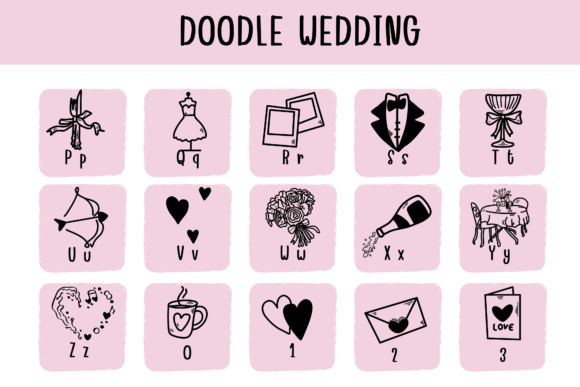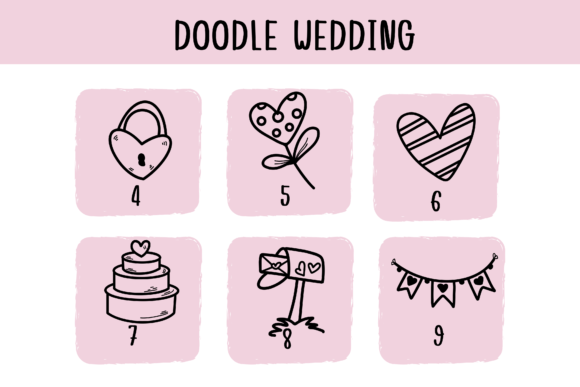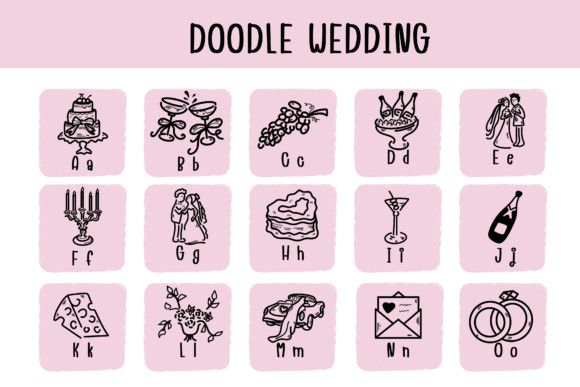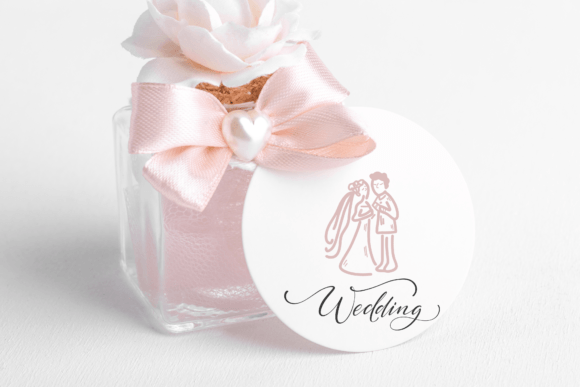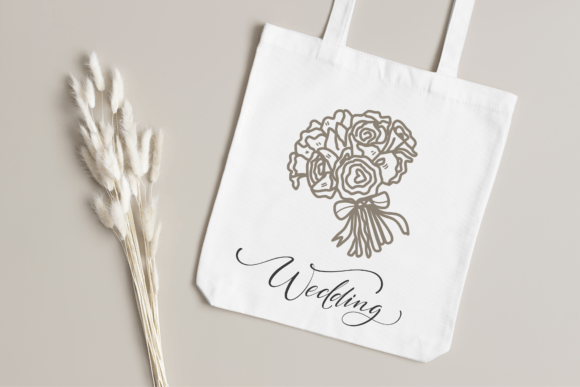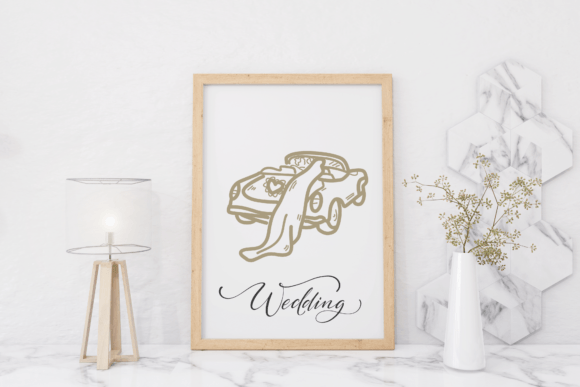
Introduction to Doodle Wedding Font Font
Fonts play a crucial role in design, and the Doodle Wedding Font font is a typeface that brings both character and versatility to any project. Whether you’re working on a branding project, a website, or a print design, the Doodle Wedding Font font offers a unique style that can elevate your work.
| 📌 Font Name | Doodle Wedding Font |
| 👤 Author | Bee piyanuch |
Doodle Wedding is a fun and decorative font made up of little pictures, called dingbats, that are all about weddings.
It includes images like wedding rings, hearts, cakes, and flowers This font is perfect for adding a cute and festive touch to wedding invitations, cards, and decorations.
Key Features of Doodle Wedding Font Font
Why Choose Doodle Wedding Font Font?
The Doodle Wedding Font font is more than just a typeface – it’s a design tool that helps you communicate your message with style and clarity. Its unique character set and versatile design make it suitable for a wide range of applications, from elegant invitations to bold headlines.
With its carefully crafted letterforms and balanced proportions, the Doodle Wedding Font font ensures readability and visual appeal across all mediums.
What makes Doodle Wedding Font font special?
The Doodle Wedding Font font stands out with its unique design, exceptional readability, and versatility across various design applications.